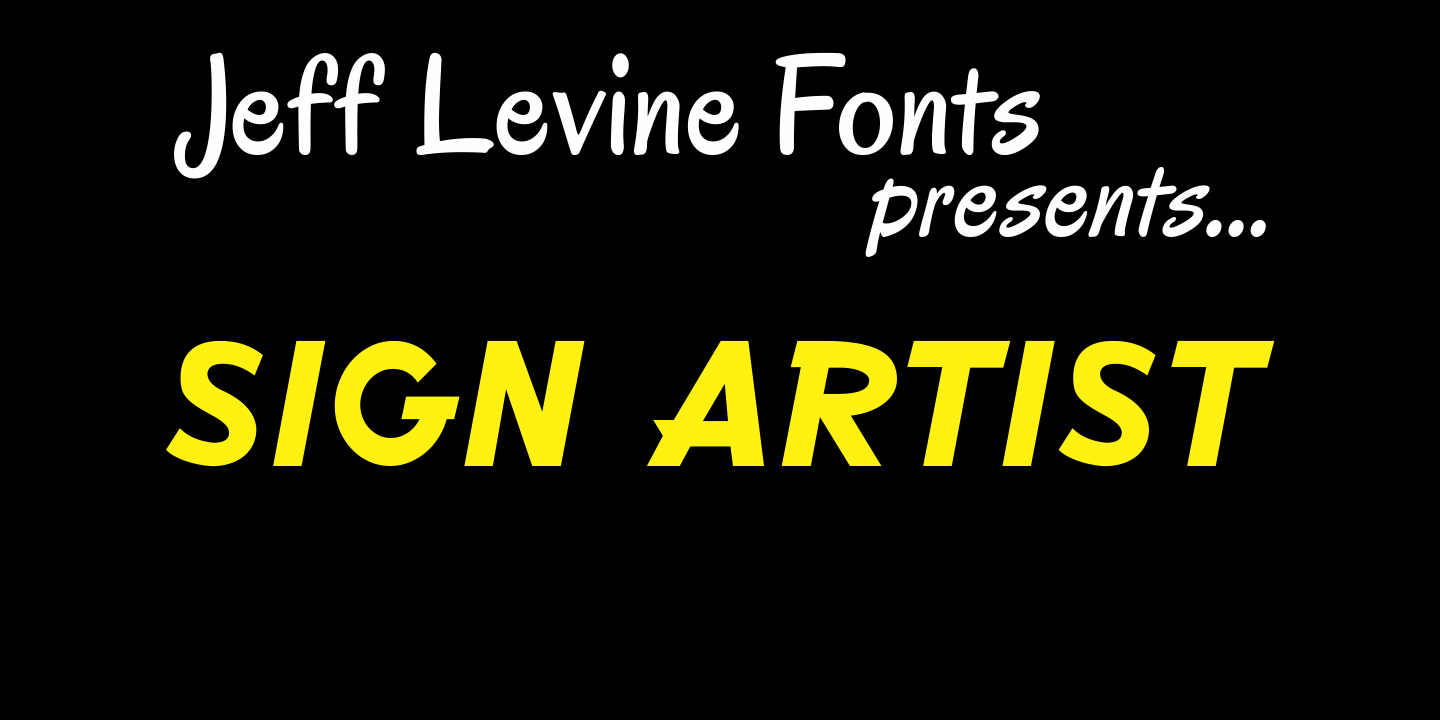
Sign Artist
Sign Artist JNL is a casual typeface, emulating the hand-lettered look of show card and sign lettering.
Created by Jeff Levine from lettering seen on some 1940's packaging, the slightly irregular letter stroke widths and shapes more closely resemble printing made with brush or ink.